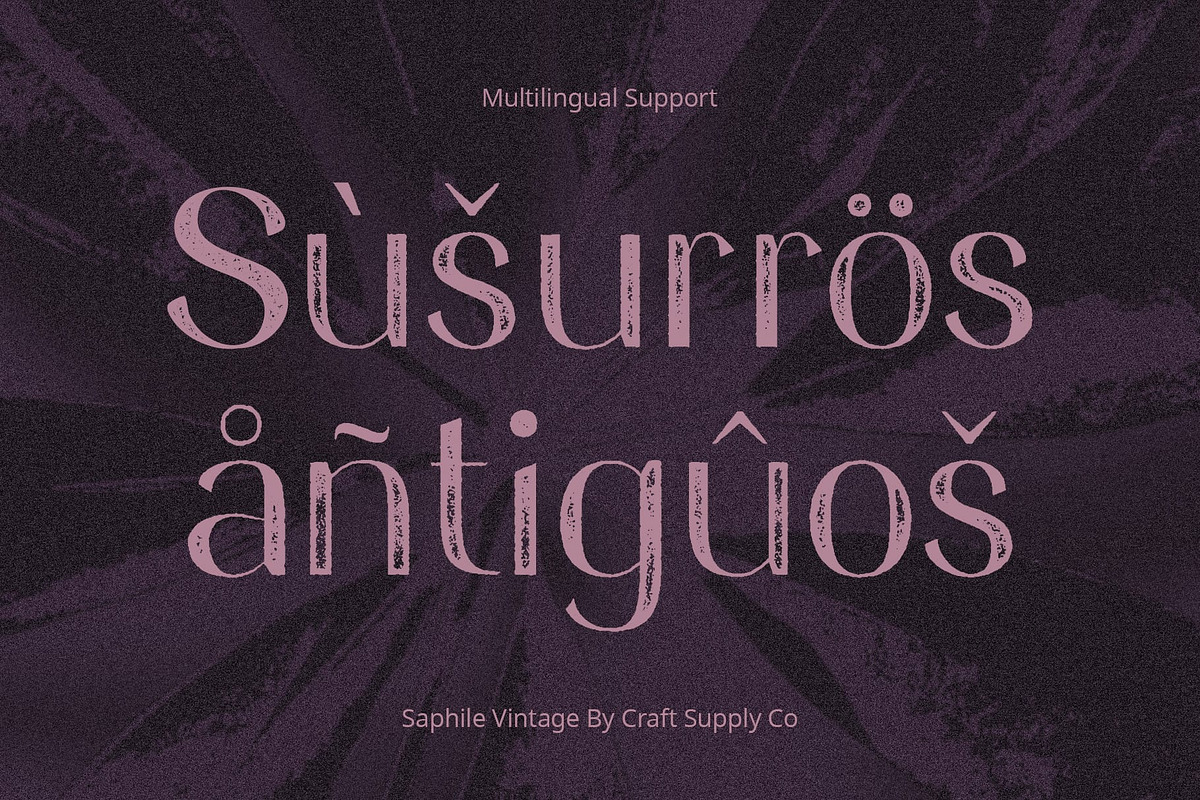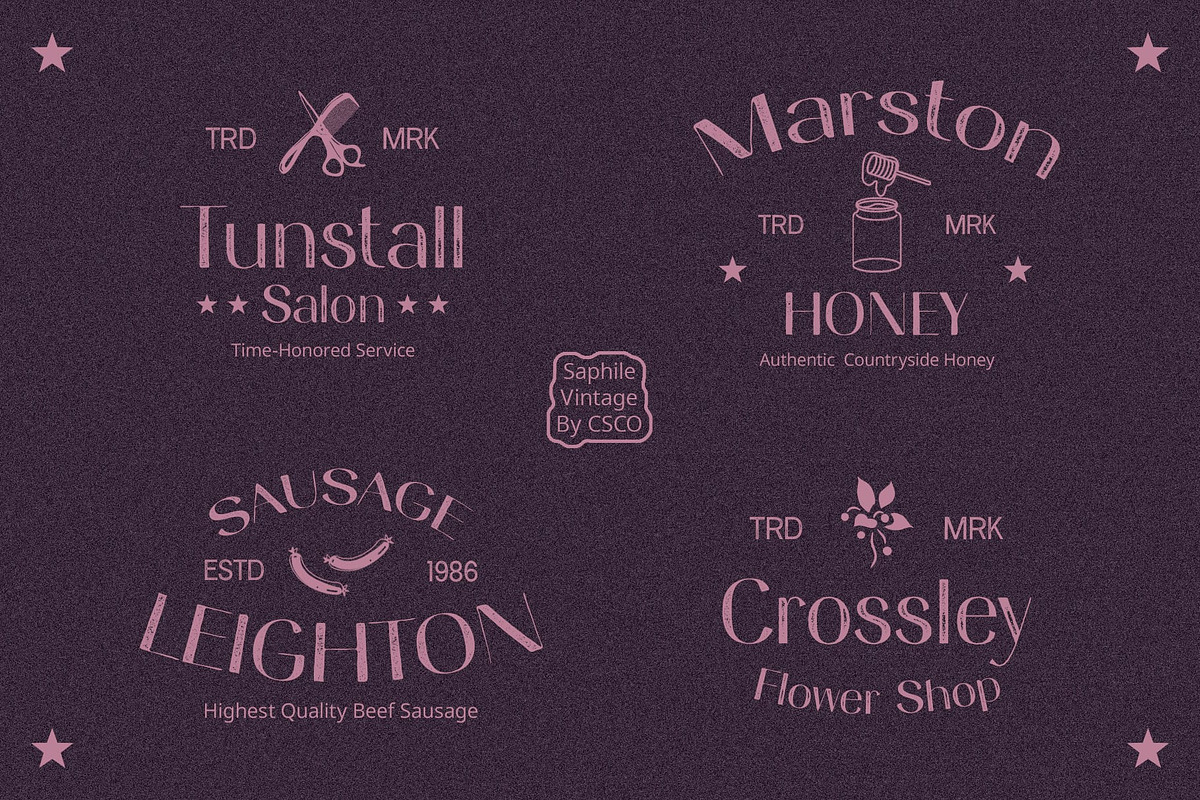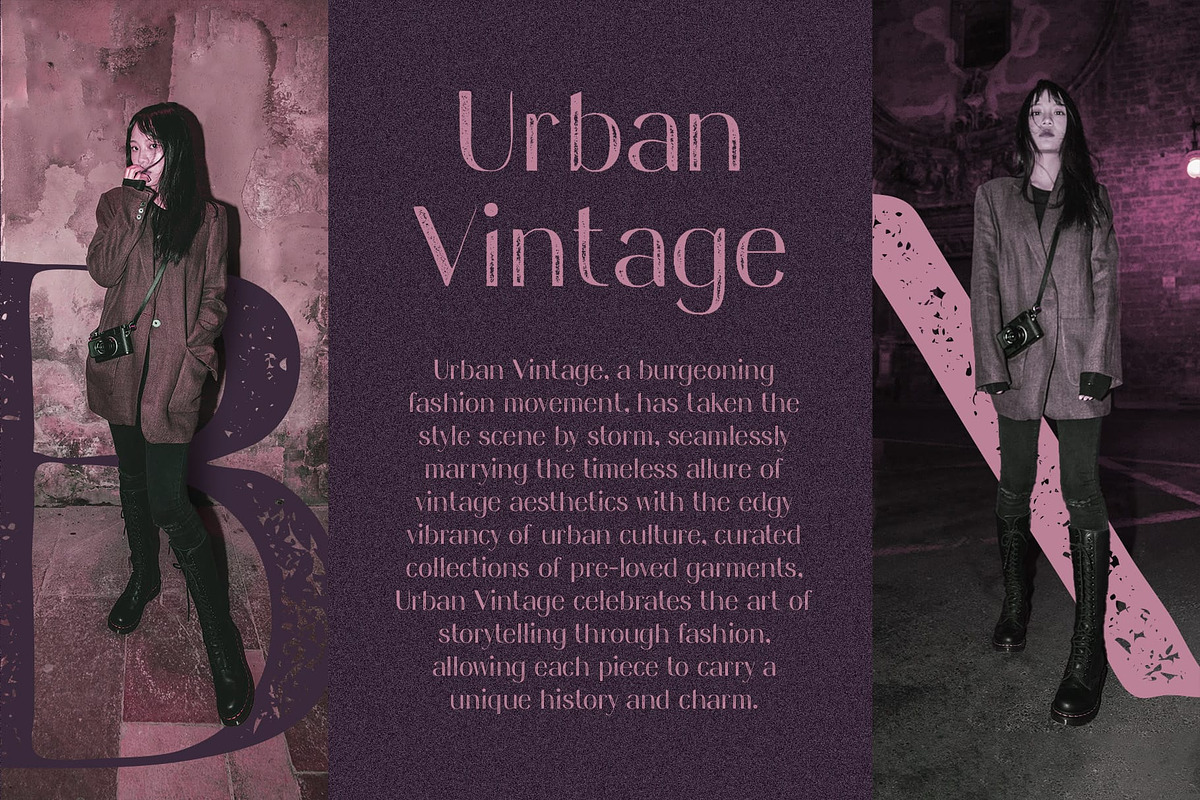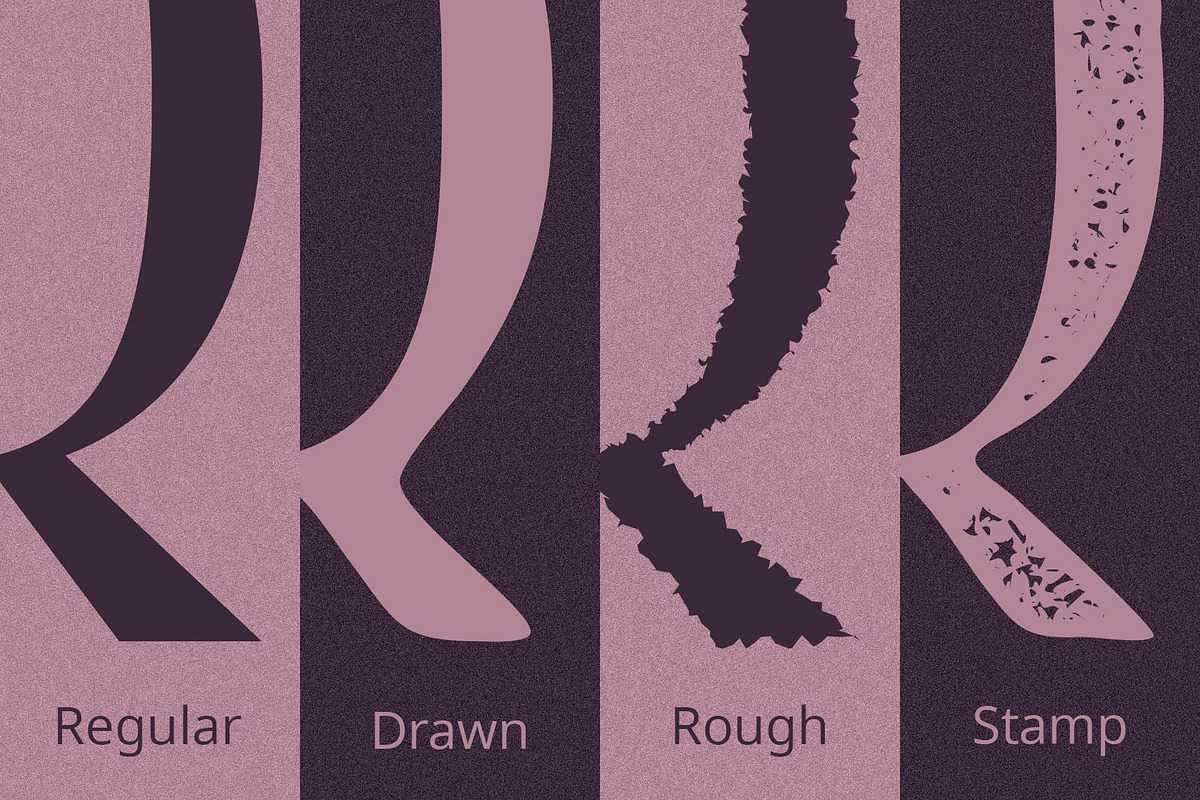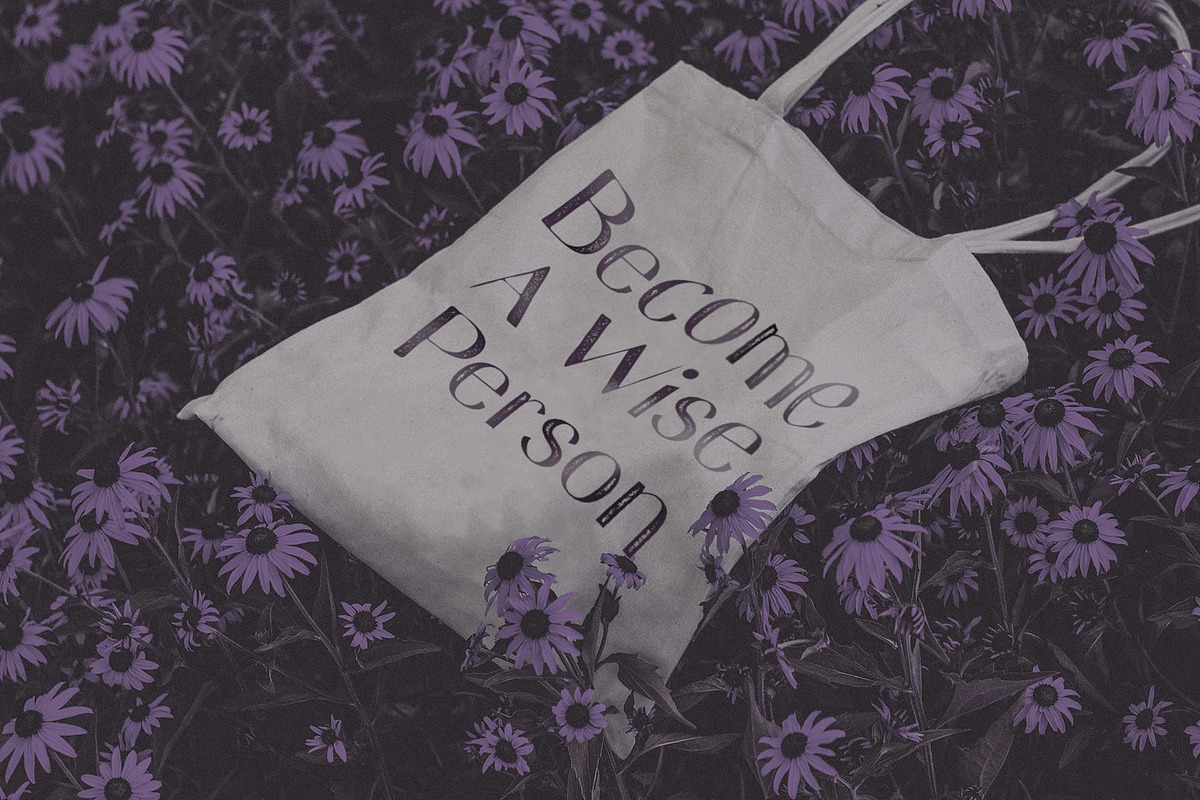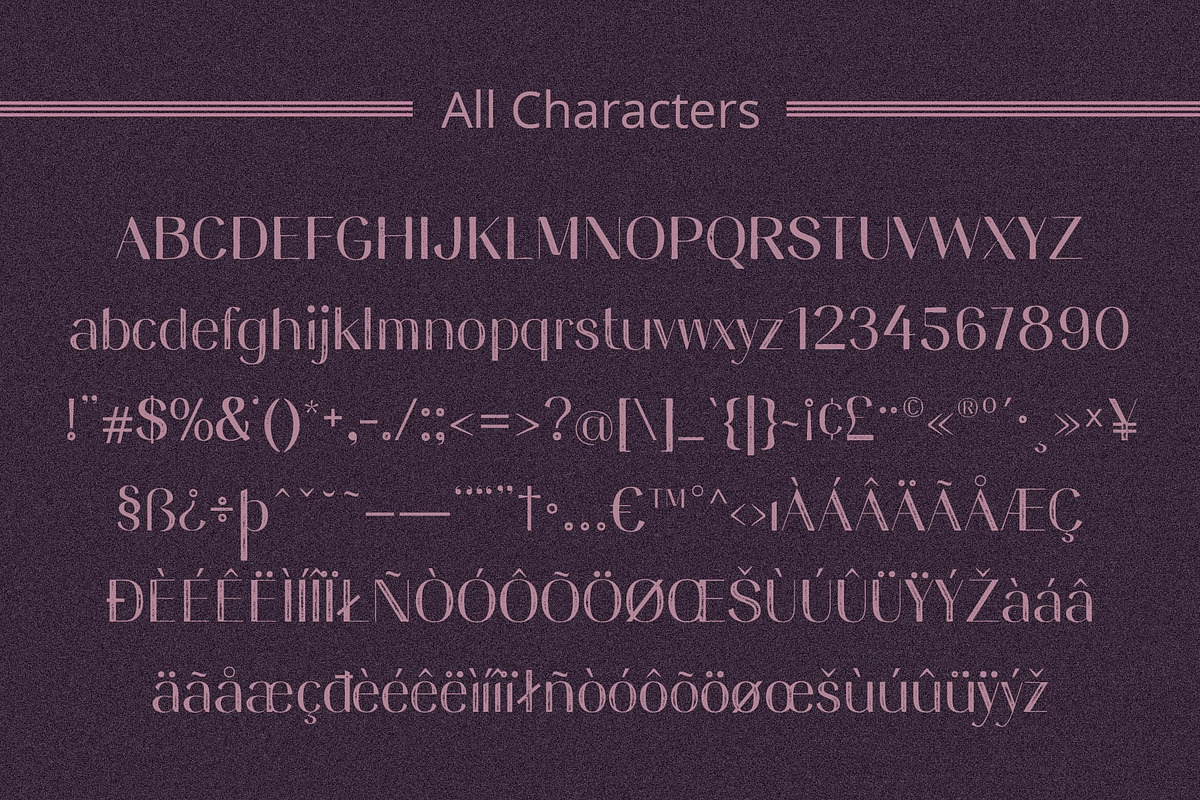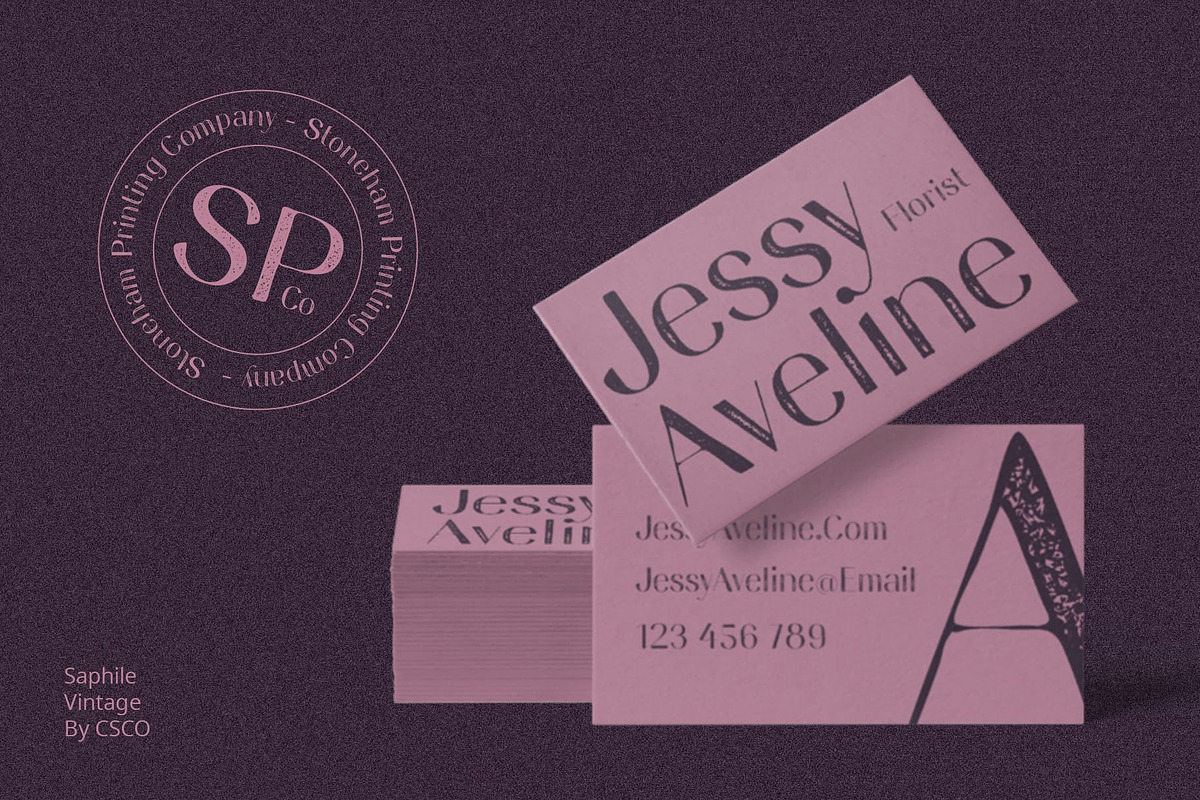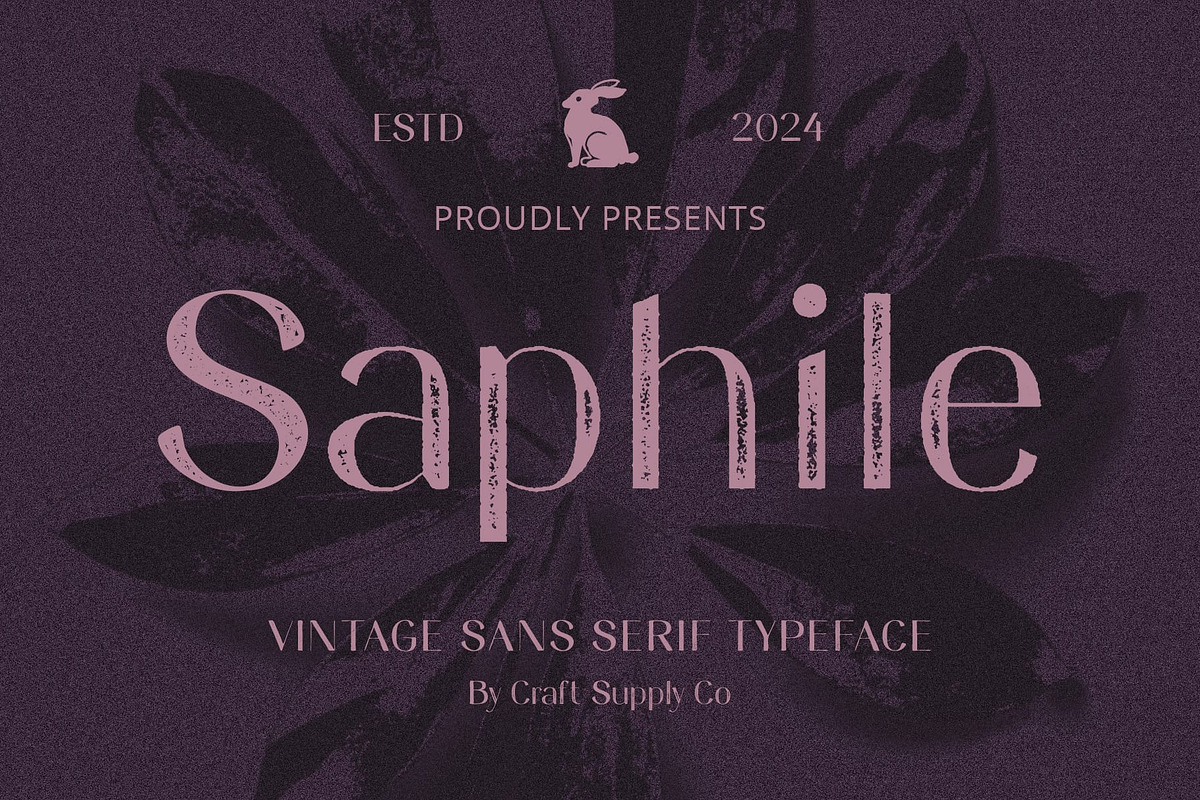
Saphile Vintage
Saphile Vintage: A Bold Display of Retro Appeal
Captivating Sans Serif Form Saphile Vintage presents a sans serif display font with bold contrasts, catching the eye instantly. Its clean lines and striking presence command attention effortlessly.
Vintage Rough Elegance Embracing vintage aesthetics, This font features rough effects that add an authentic charm. Its vintage-inspired roughness brings character to every letter, making it stand out in any display setting.
Ideal for Eye-Catching Displays With its bold sans serif form and vintage rough effects, This font is perfect for grabbing attention. Whether on posters, banners, or branding materials, it ensures that your message is seen and remembered.
Versatile Application From digital displays to print media, This font offers versatility in application. Its bold yet vintage-inspired design makes it suitable for a wide range of display projects, ensuring that your message resonates effectively.
Retro Display Gem This font combines the boldness of a sans serif with the charm of vintage roughness, creating a display font that is both striking and nostalgic. With its eye-catching appeal and versatile application, it adds a touch of retro elegance to any design project, ensuring that your message stands out in style.
- Saphile Regular
- Saphile Drawn
- Saphile Rough
- Saphile Stamp